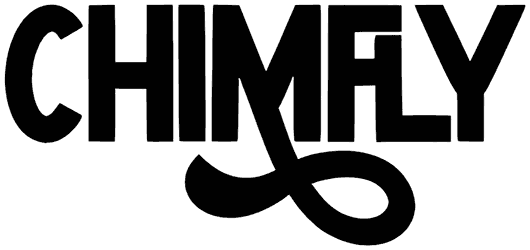
Singo Font
Singo font has two different types, simple and italic. This sans serif font is for those looking for simplicity and who like to deliver simple yet creative and modern designs to their customers.
This tall title font does not have lowercase letters, but on the other hand, you can complete the design of business cards, posters, and flyers with the rest characters. If you’ve used this font and found it helpful, recommend us to your friends!
Designed by: Ferry Ardana Putra